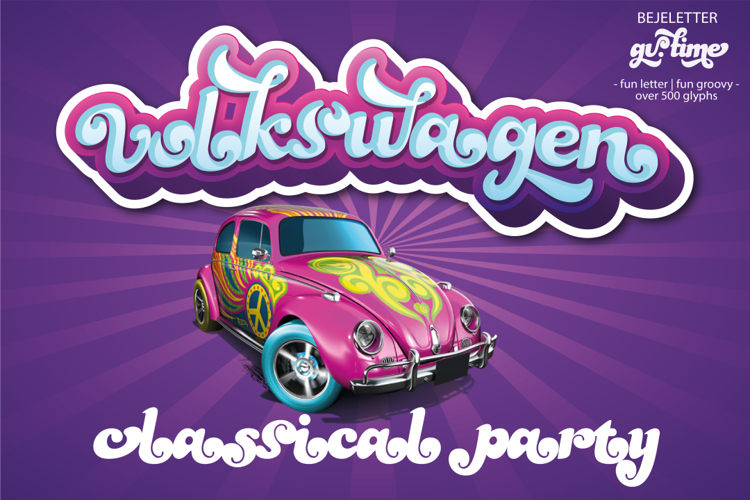
Gv. time Font
Inspired from 60's and 70's script lettering, bringing a smile and a dose of nostalgia to the daily lives. Where you get to relive the far out culture of the 60’s and 70’s! The era of groovy was all about music, festivals, where icons were created, epic stories were told, and culture was changed forever. The Gv. time came with open type features such stylistic alternates and others, its help you to make great lettering, also support multilanguage.
It's looks like the font "Candice". :|